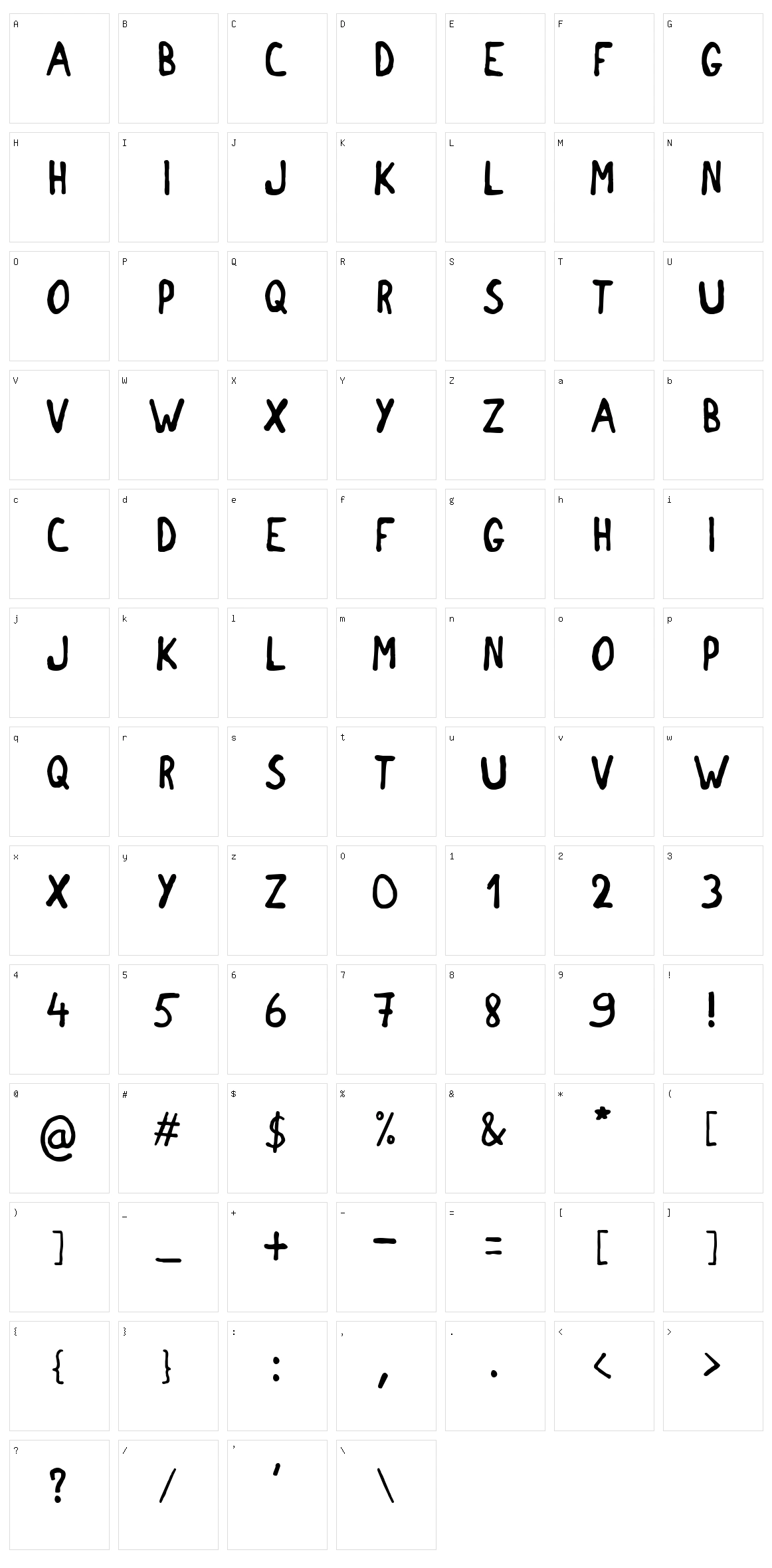
CHOCOLATE HIPPO has been designed using a black marker, white paper, a scanner, and patience.
The preview picture was taken in Porto, while enjoying a nice morning coffee.